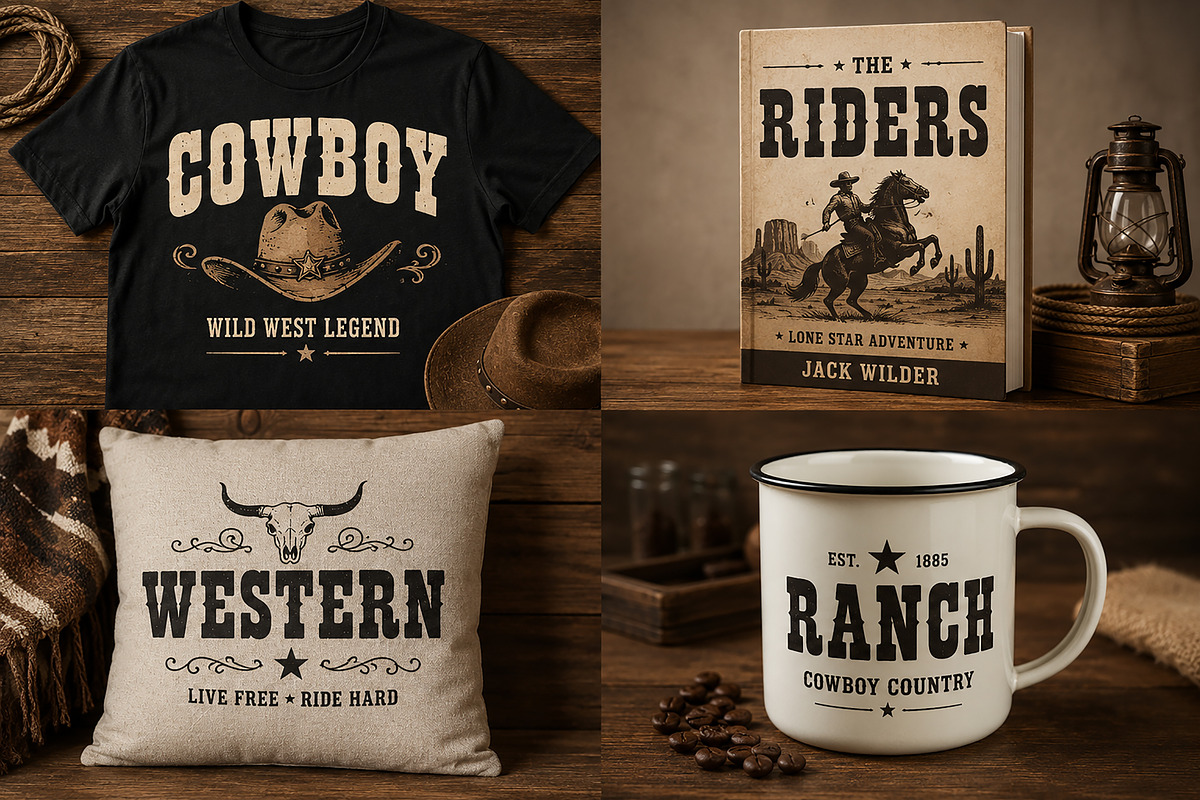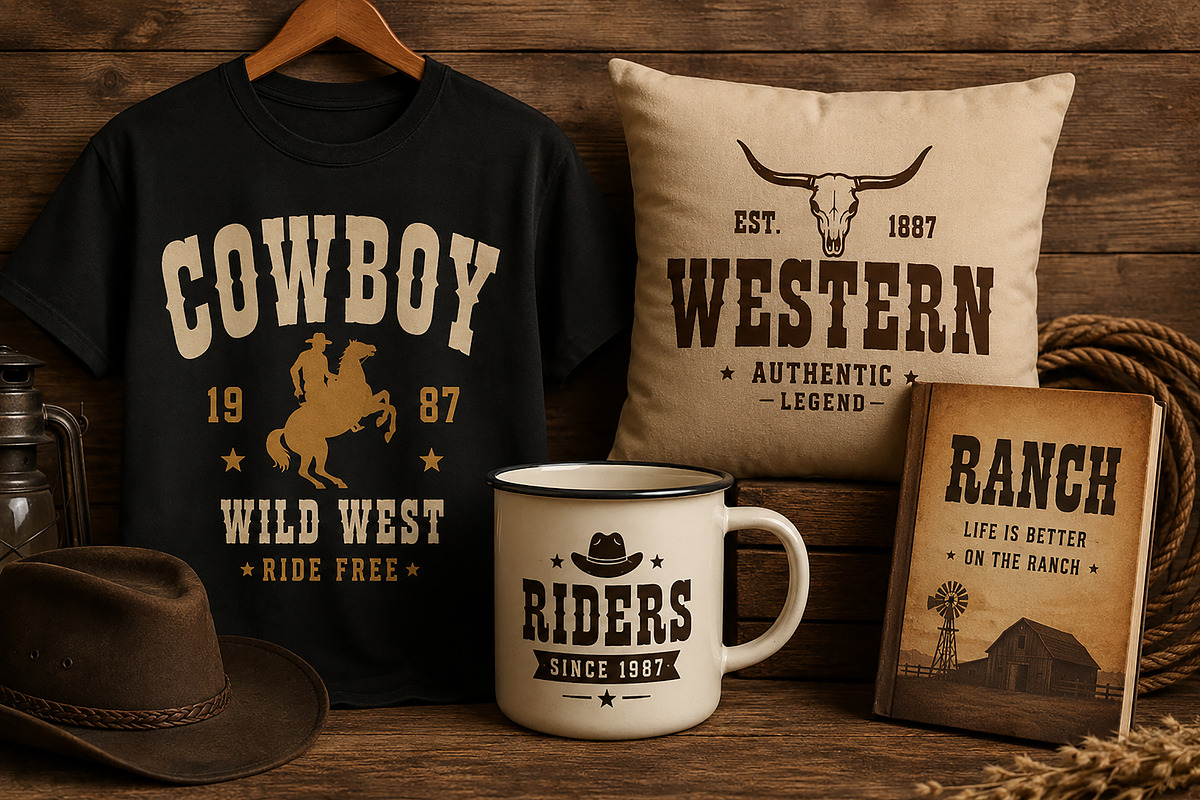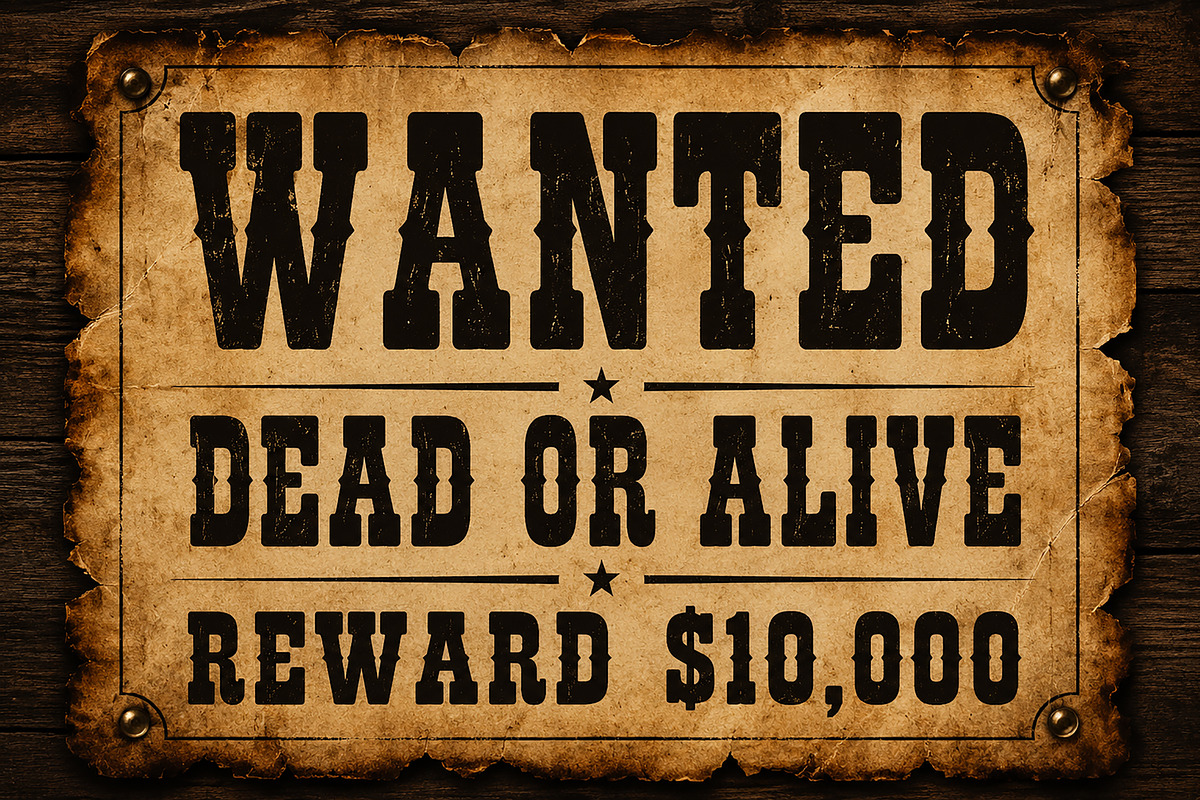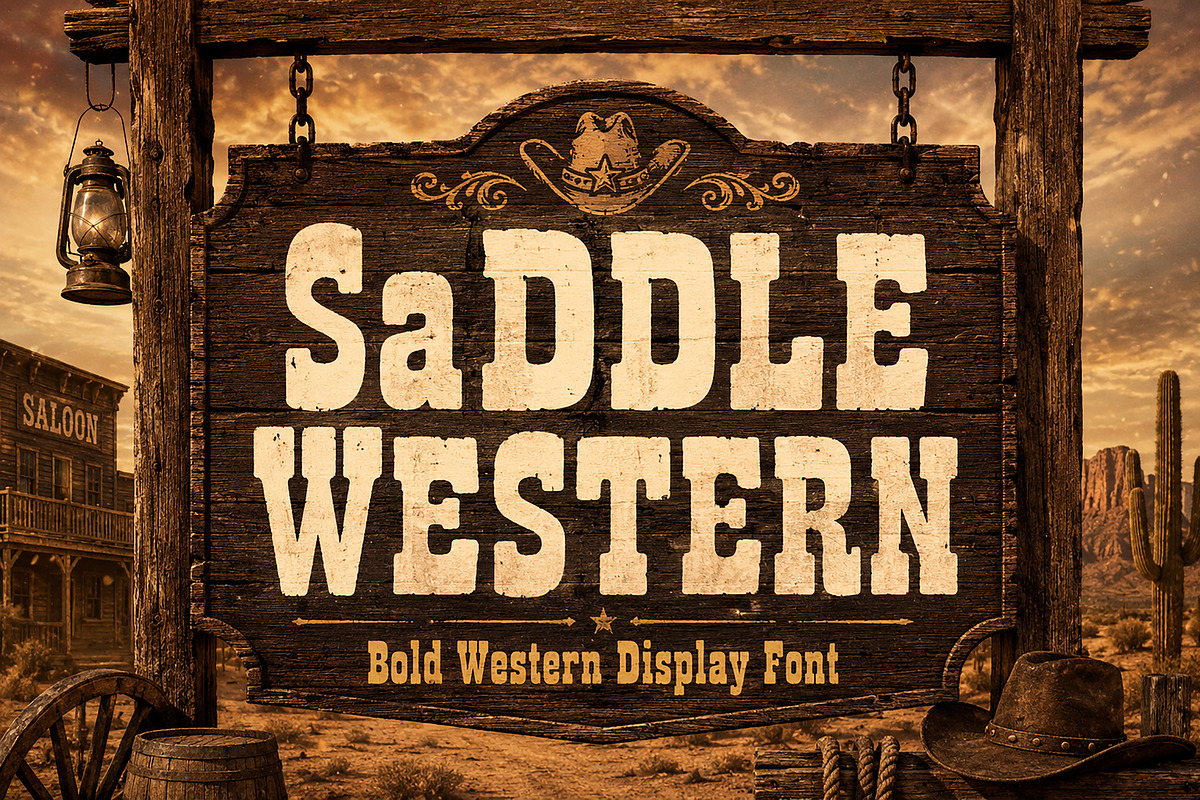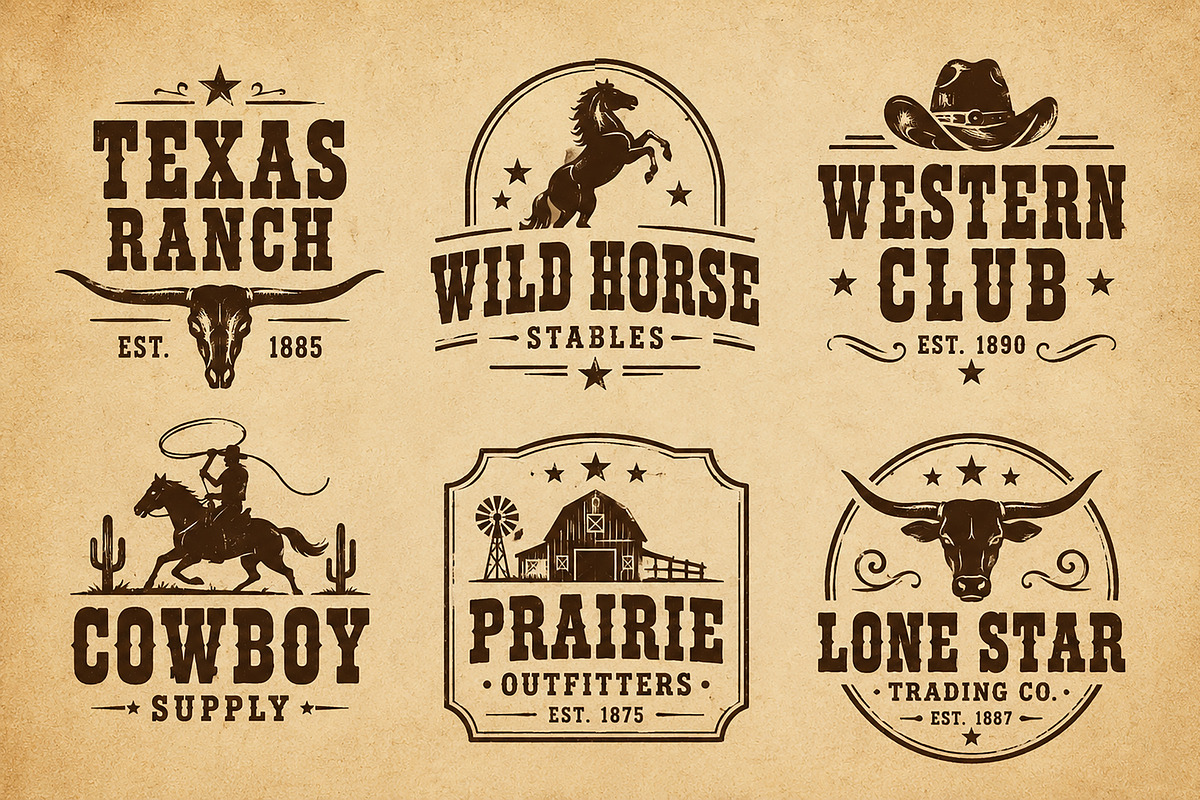
Saddle Western
Saddle Western – Bold Western Display Font
Saddle Western is a bold and rugged Western display font inspired by classic cowboy culture, vintage saloon signage, ranch branding, and Wild West typography. Designed with strong letterforms and an authentic frontier feel, this font is perfect for creating eye-catching logos, posters, packaging, merchandise, apparel designs, book covers, branding projects, and vintage-themed artwork.
Whether you're designing a rustic ranch logo, a western movie poster, a cowboy-inspired t-shirt, or a retro branding project, Saddle Western delivers the timeless spirit of the American frontier with bold character and excellent readability.
Western & Cowboy Branding
Ranch Logos
Vintage Posters
Saloon Signs
T-Shirt Designs
Adventure & Outdoor Branding
Country Music Artwork
Retro & Rustic Projects
Uppercase Characters
Lowercase Characters
High-Quality Display Typeface
Bring the spirit of the Wild West to your next project with Saddle Western, a bold display font crafted for designers who want authentic western character and vintage charm.